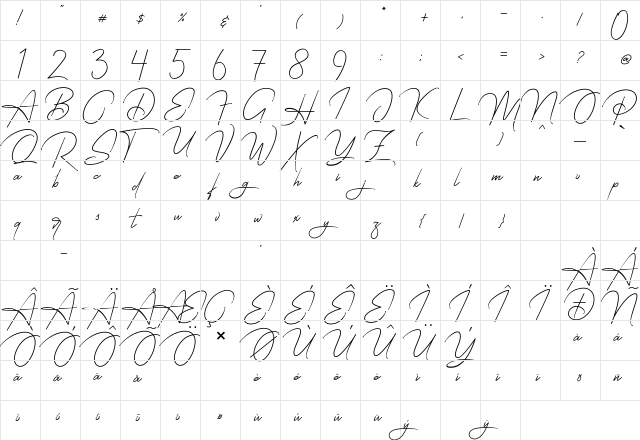
Starcity Script Regular
Design Context for Starcity Script Typeface
Starcity Script brings a calligraphic fluidity to the page — its connecting strokes and expressive curves give it an unmistakably human quality.
Font Pairing: Combine Starcity Script with a simple geometric sans for maximum contrast — the tension between flowing curves and clean structure is a classic typographic pairing.
Pro Tip: Pair Starcity Script with a clean sans-serif for supporting text. The contrast between fluid script and geometric structure creates an elegant typographic hierarchy.